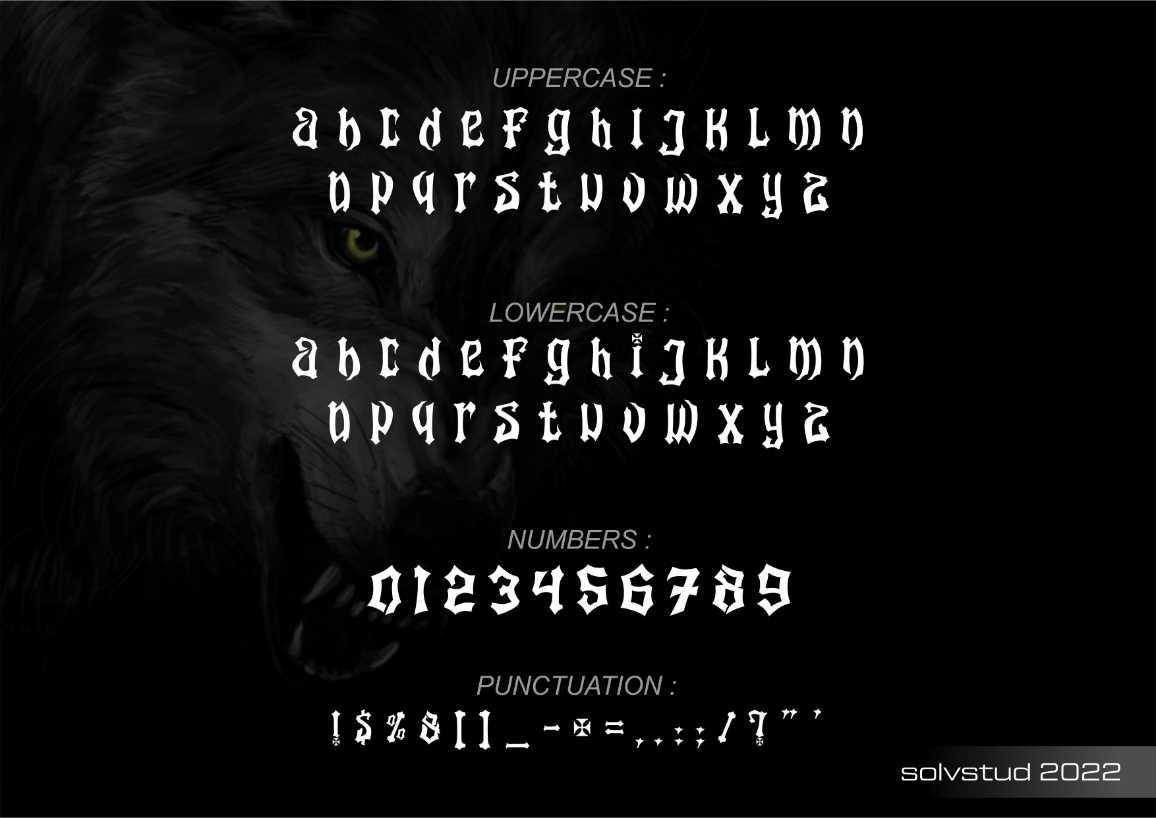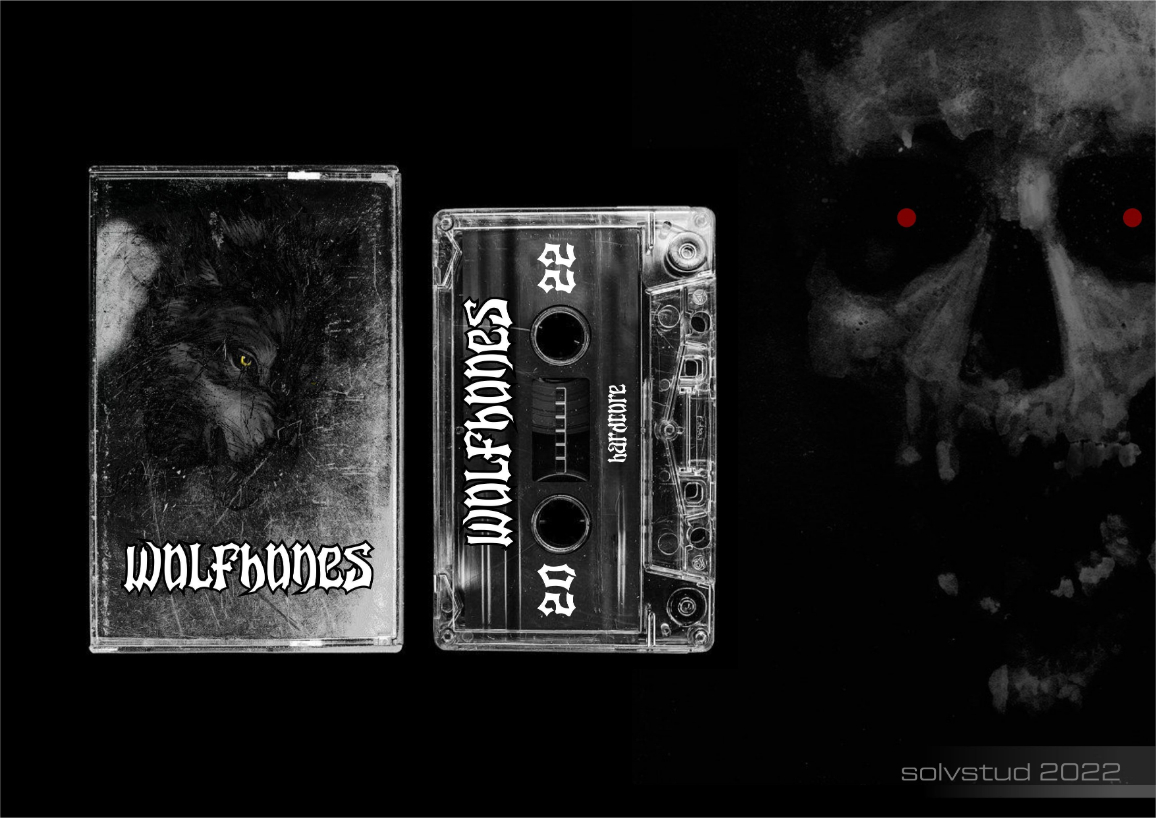
About Wolfbones Font
Wolfbones is a splendid blackletter font that will impress with its stylish features. Use it for product packaging, branding, or other projects that need bold and daring typography!